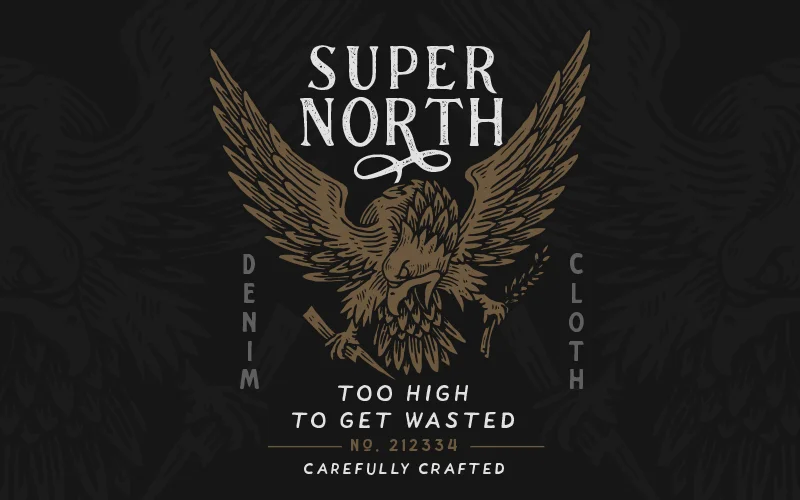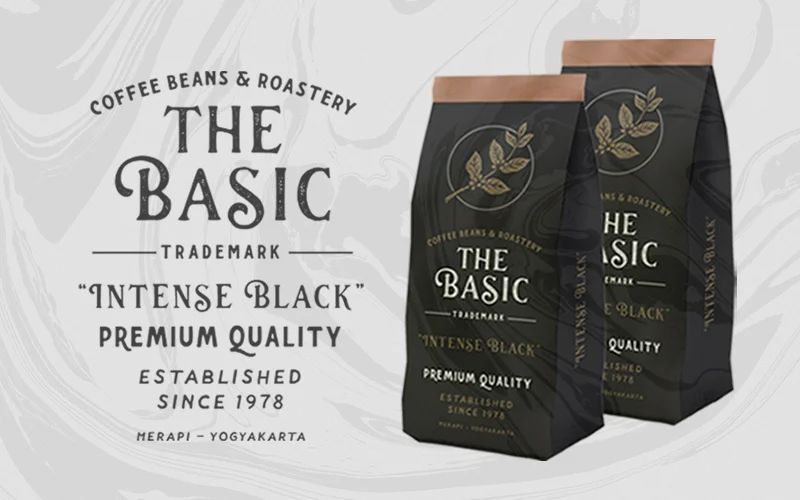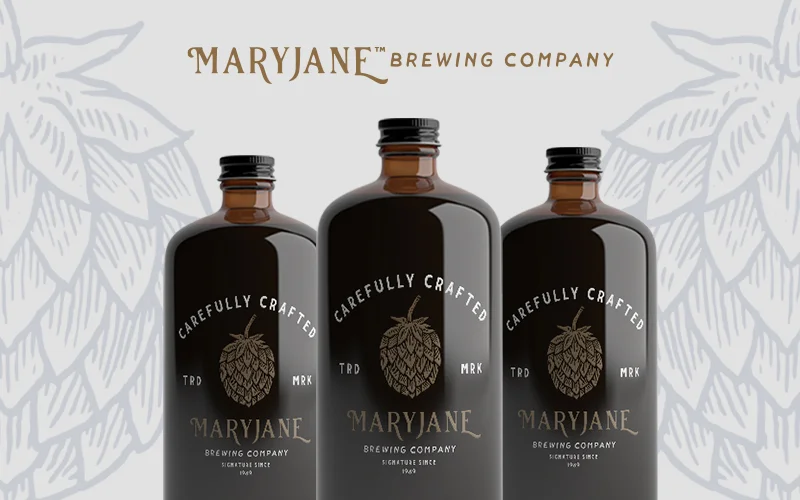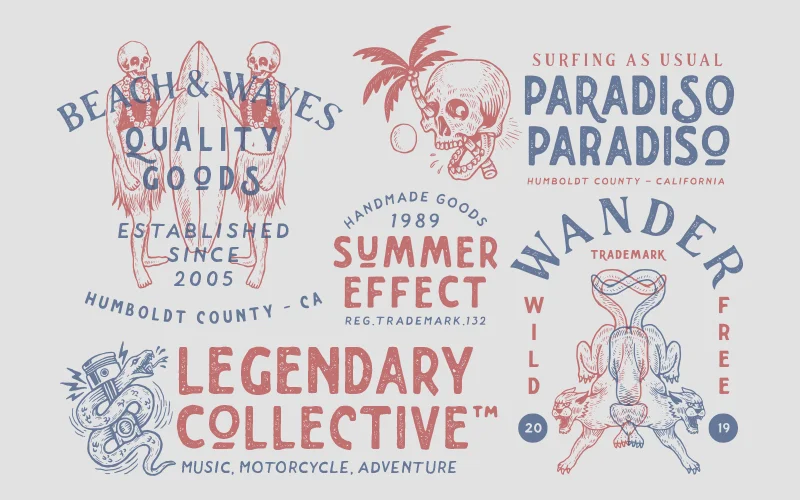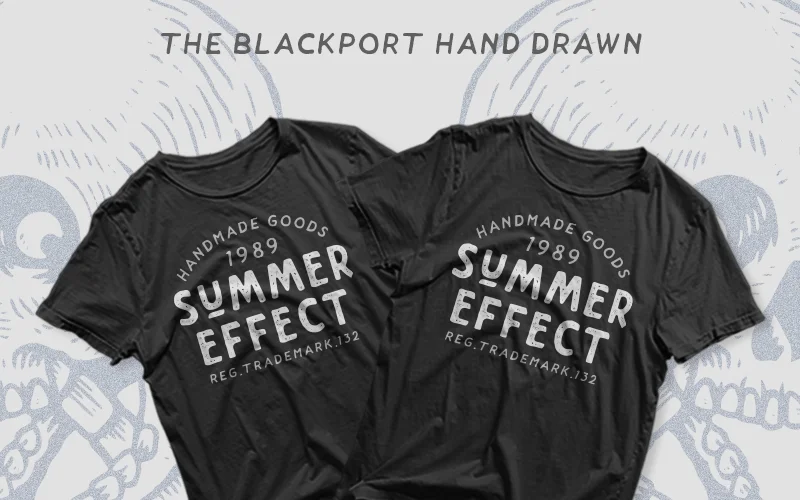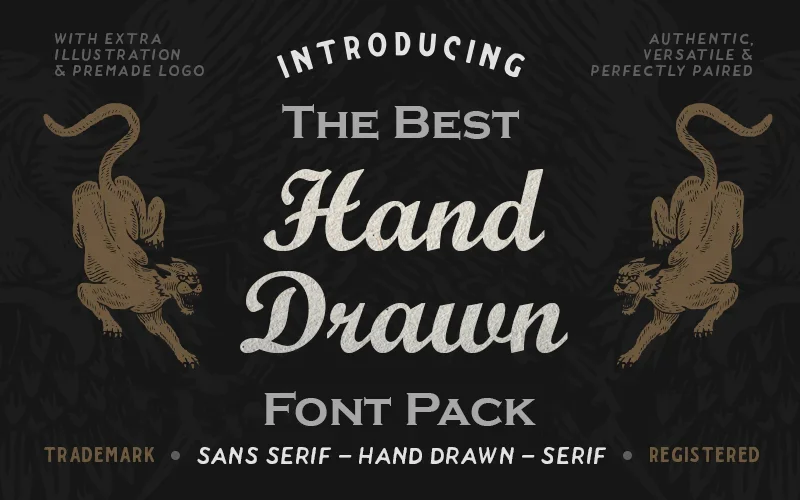
Design With The Best Hand Drawn Sans Serif Font Family
Infuse a touch of artistry into your projects with Black Port – The Best Hand-Drawn Font Pack.
The Blackport Font Pack is a collection of the best sans-serif fonts in OTF and TTF formats.
These fonts, illustrations, and logos are fully customizable, allowing many unique design possibilities. Moreover, these hand-drawn fonts are compatible with Adobe Illustrator and Photoshop.
The Blackport Hand-Drawn Font
The Blackport Sans Regular
The Blackport Serif Regular
The Blackport Sans Stamp
The Blackport Serif Stamp